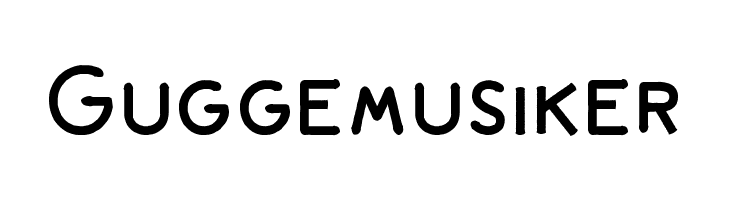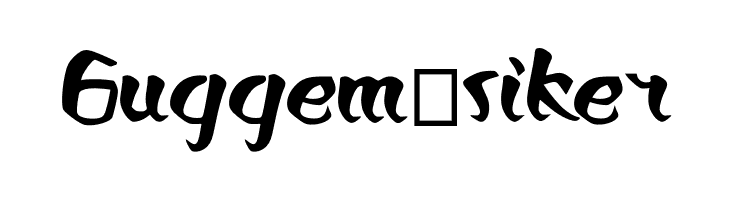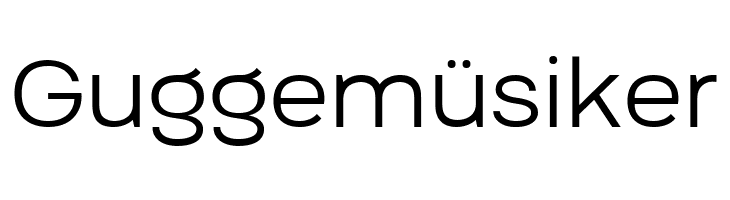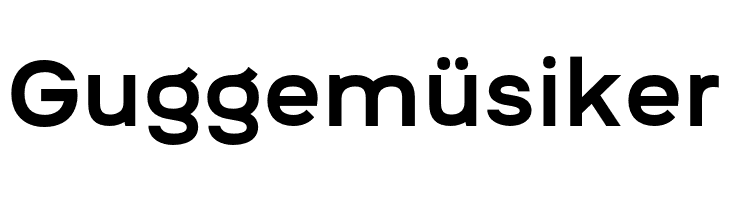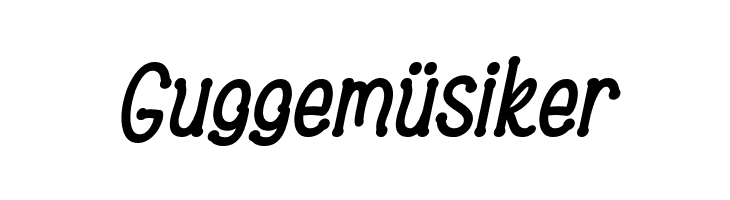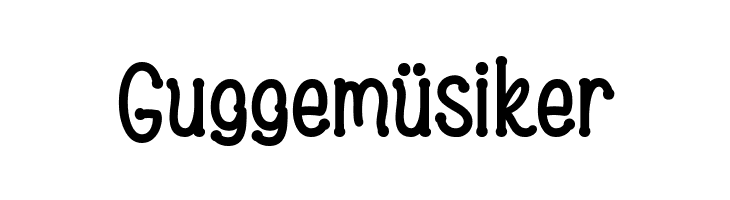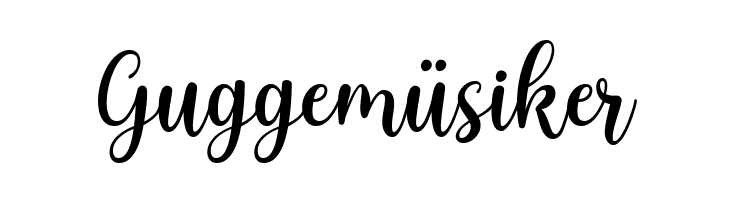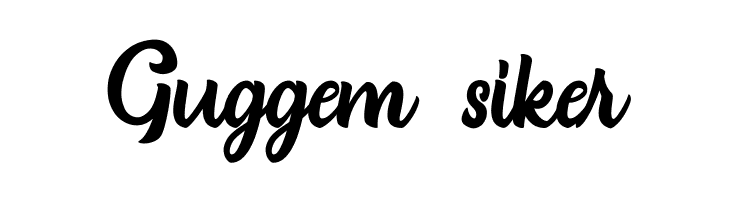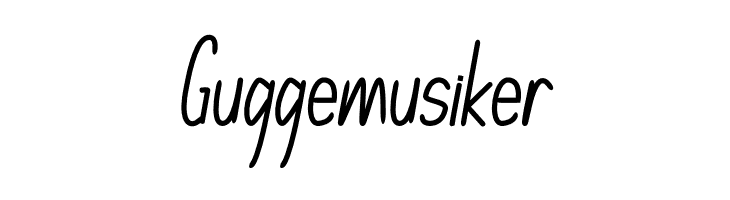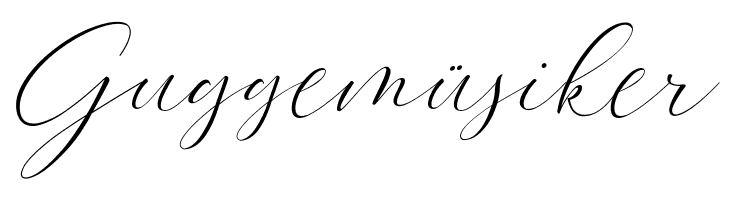
BrookeShappell8 Font
brookeshappelldots Font
A playful, dotted font with a hand-drawn, whimsical style.
Brookings Font
A playful, hand-drawn font with irregular, bold characters.
BROOKLINE-Condensed Font
A bold, condensed sans-serif font with a modern, professional appearance.
Brookliness Font
A bold, expressive handwritten font with brush-like strokes.
Brooklyn Font
A playful, casual handwritten font with flowing strokes and a whimsical style.
Brooklyn Font
A playful, handwritten font with a dynamic and informal style.
Brooklyn Chill Out Font
A bold, playful font with a three-dimensional comic book style.
Brooklyn Inline Font
A bold, modern inline font with sharp angles and geometric structure.
Brooklyn Kid Font
A bold, graffiti-inspired font with dynamic, hand-drawn characters.
Brooklyn Makayla Font
A modern cursive font with elegant, flowing strokes.
Brooklyn Park Demo Font
A dynamic and expressive handwritten font with fluid strokes and a casual elegance.
Brooklyn Regular Font
A bold, angular font with a modern, geometric style.
Brooklyn Script Font
A playful and elegant script font with fluid, interconnected letterforms.
Brooklyn Shop Font
Bold decorative script font with playful style.
Brooklyn Sky Font
A playful, casual handwritten font with smooth, rounded edges.
BrookmanSwash Bold Font
A bold, decorative font with swash elements and elegant flourishes.
Brooks Font
A whimsical, decorative font with elongated serifs and a playful style.
BrooksType-Regular Font
A bold, geometric typeface with clean lines and sharp angles.
Brookville Demo Font